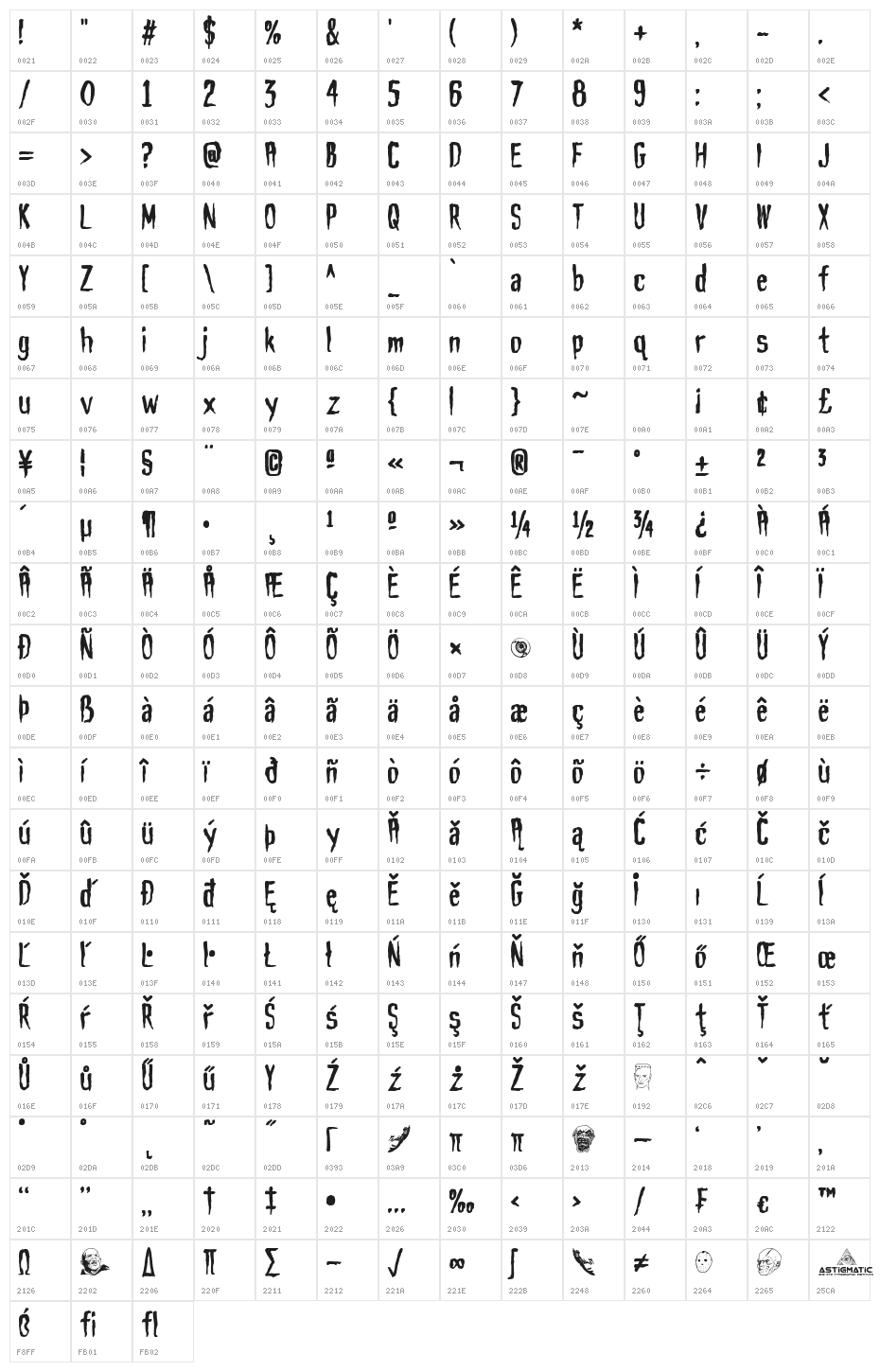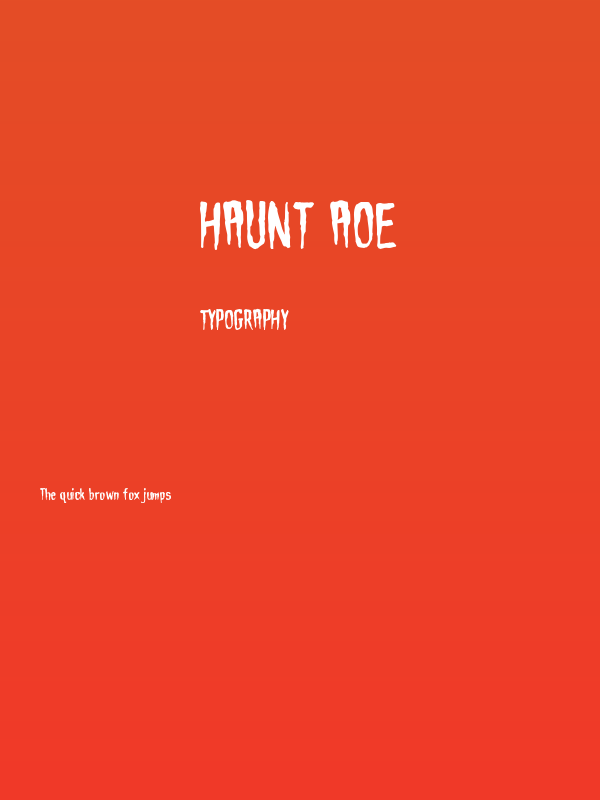
Haunt AOE Font
Haunt AOE Description
This font features a spooky, hand-drawn style that evokes a sense of mystery and eeriness. The uneven, jagged edges of the characters give it a ghostly appearance, making it ideal for Halloween-themed projects or anything requiring a touch of the supernatural. The uppercase and lowercase letters maintain a consistent style, with a slightly irregular baseline that adds to the unsettling aesthetic. Numbers and special characters are included, each maintaining the same eerie quality. The overall design is bold and impactful, ensuring it stands out in any design.
Use CaseHeadlines, Posters, Themed Events
Proposed ProjectsIdeal for Halloween invitations, horror movie posters, haunted house flyers, and spooky-themed merchandise.